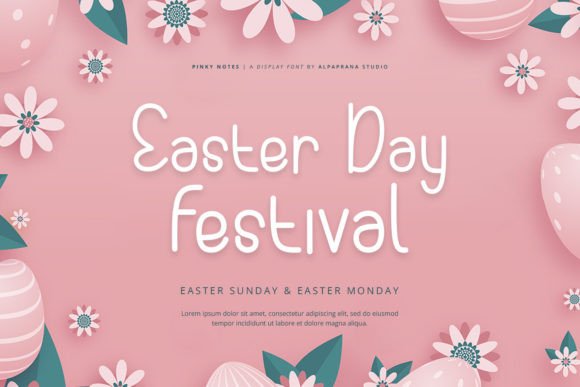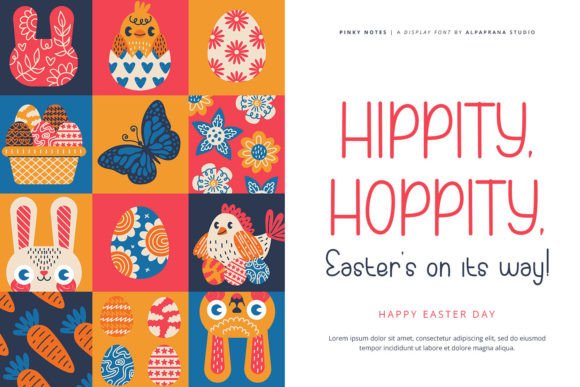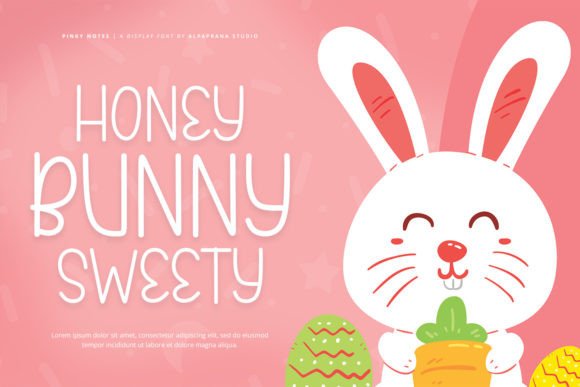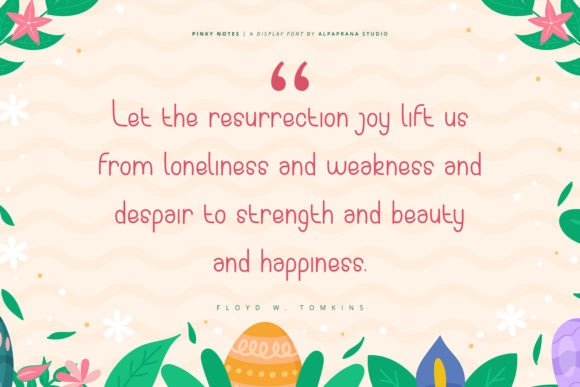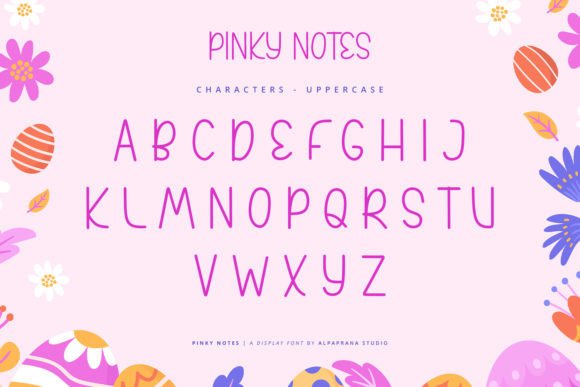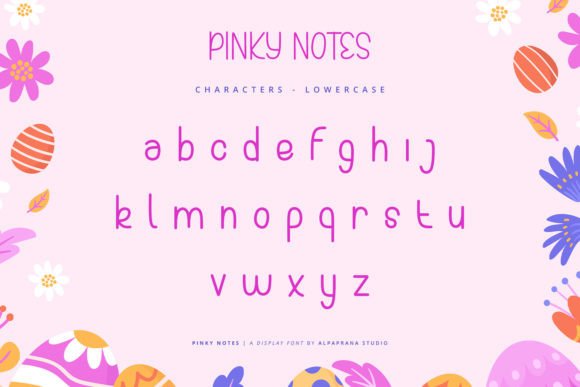
Introduction to Pinky Notes Font
Pinky Notes is a display font with cute and playful feels.
Whether you’re using it for crafts, digital design, presentations, or making greeting cards, this font has the potential to become your favorite go-to font, no matter the occasion .
Key Features of Pinky Notes Font
Why Choose Pinky Notes Font?
Pinky Notes Font offers exceptional quality and versatility, making it a valuable addition to your design toolkit. Whether you’re creating for personal projects or commercial use, Pinky Notes Font delivers professional results.